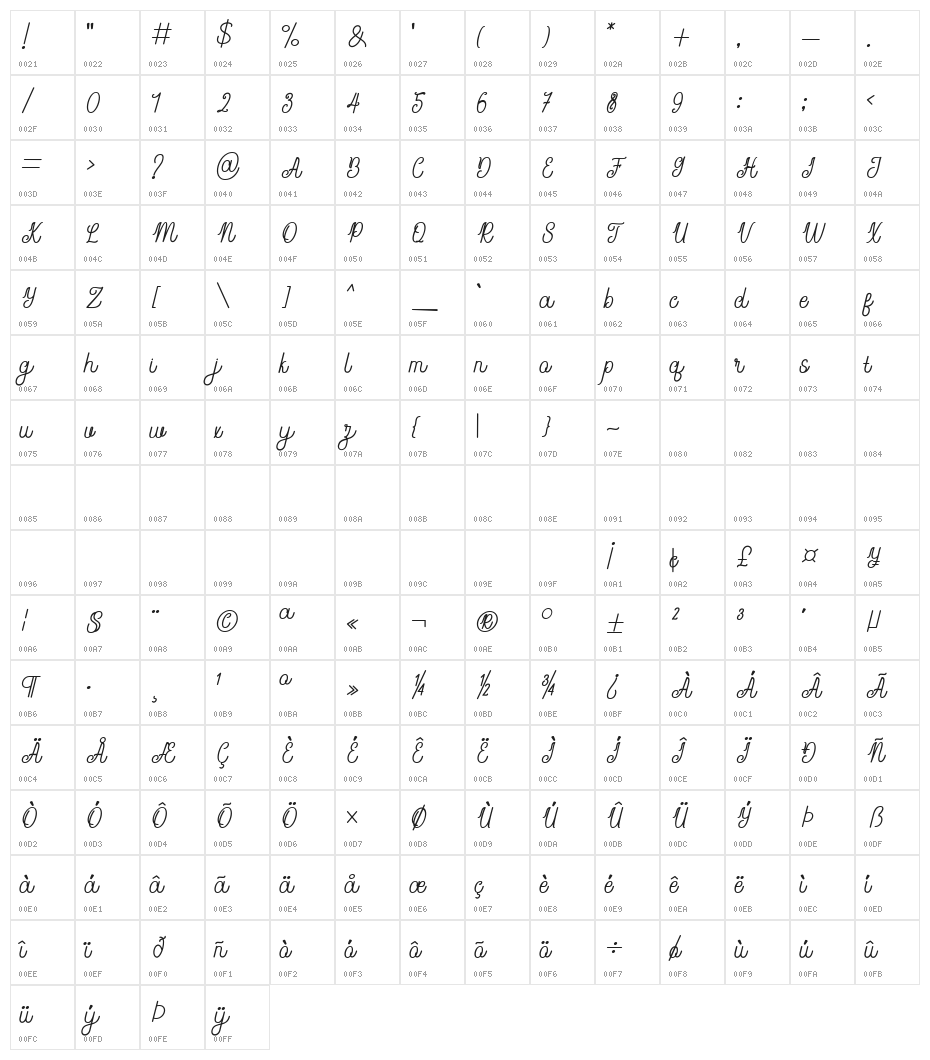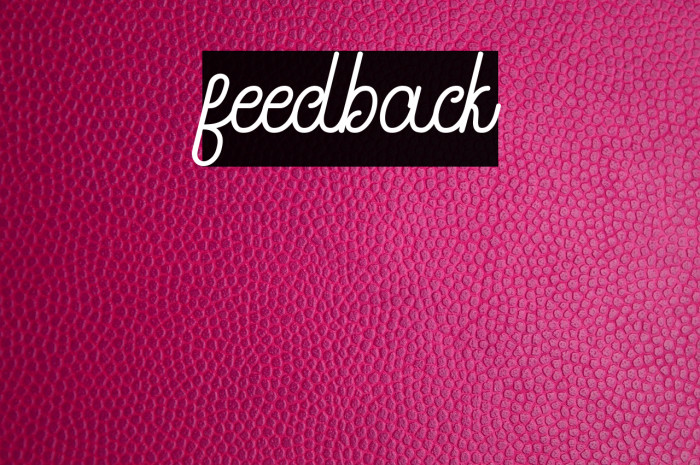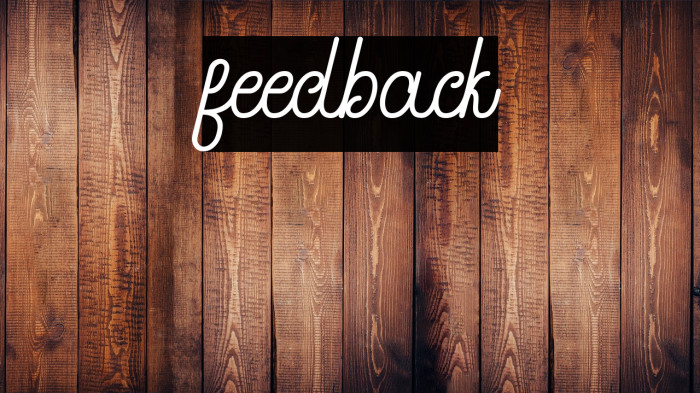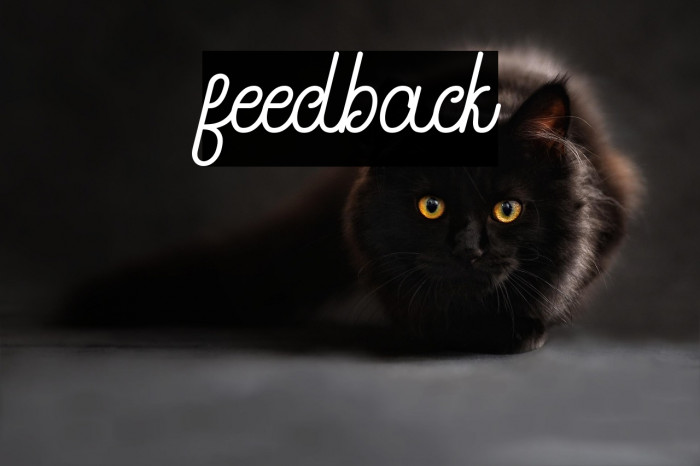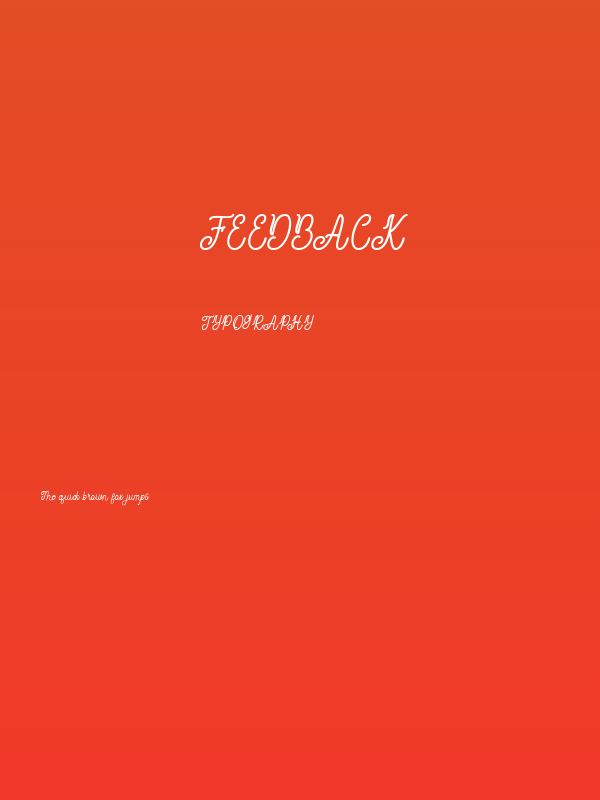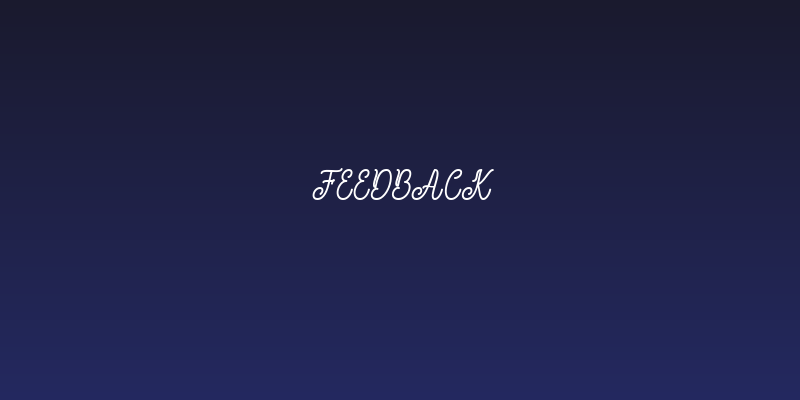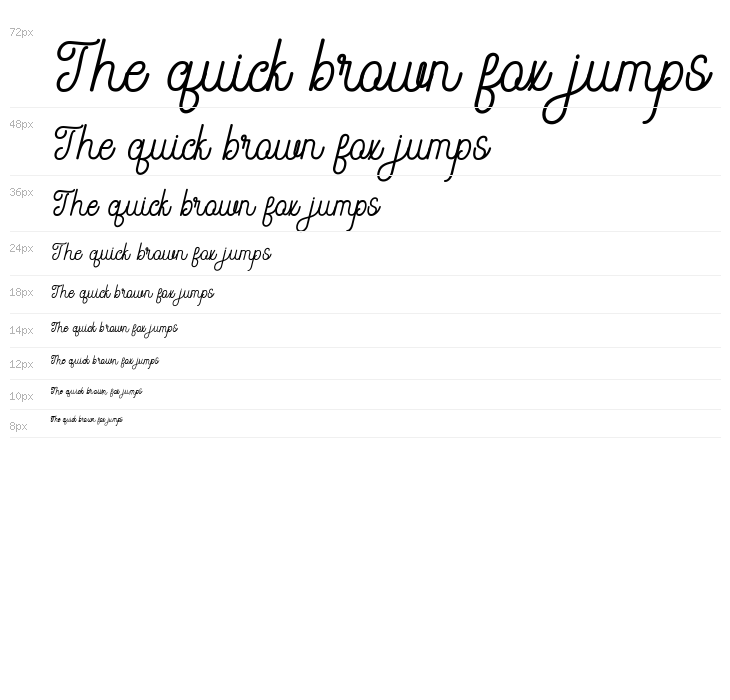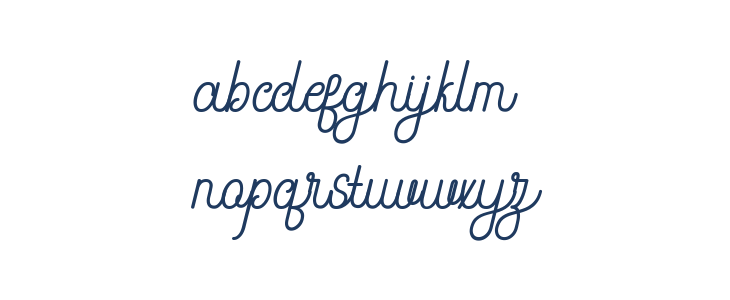
feedback Font
feedback Description
This elegant script font features a flowing, cursive style with smooth, connected strokes that mimic the fluidity of handwriting. The uppercase letters are ornate, with graceful loops and swirls, while the lowercase letters maintain a consistent, flowing baseline. The numerals and special characters are designed to complement the overall aesthetic, adding a touch of sophistication. The font's design is both classic and versatile, making it suitable for a variety of applications. Its legibility is enhanced by the moderate spacing between characters, allowing for easy reading while maintaining its decorative appeal.